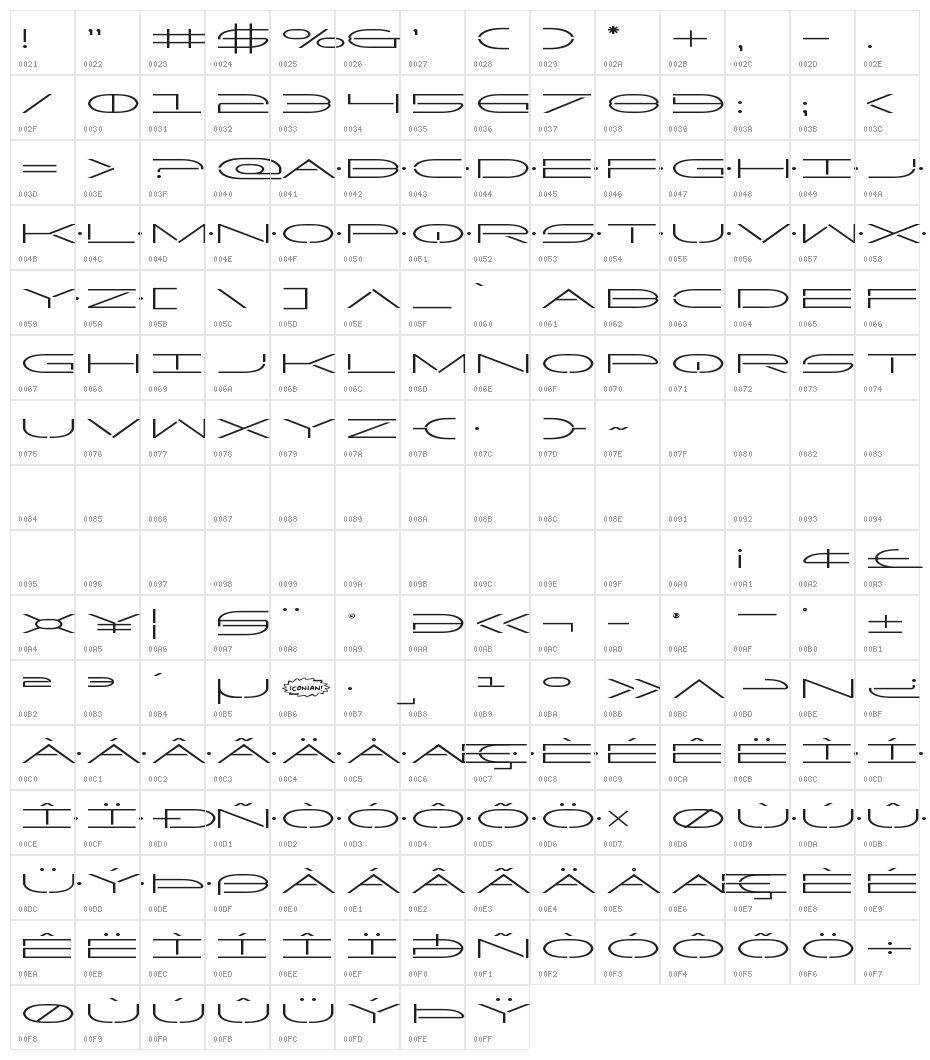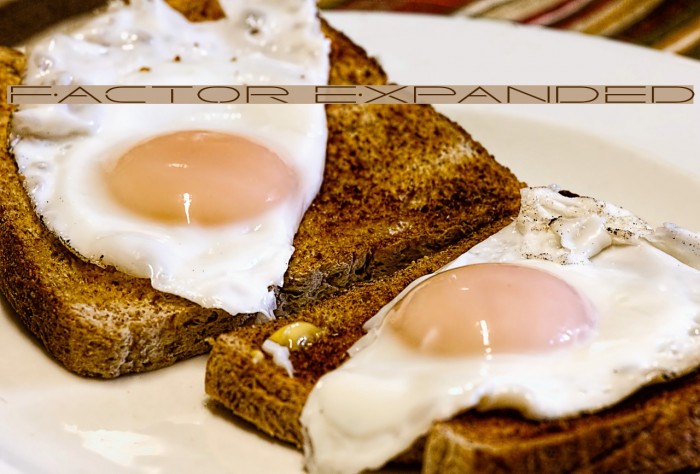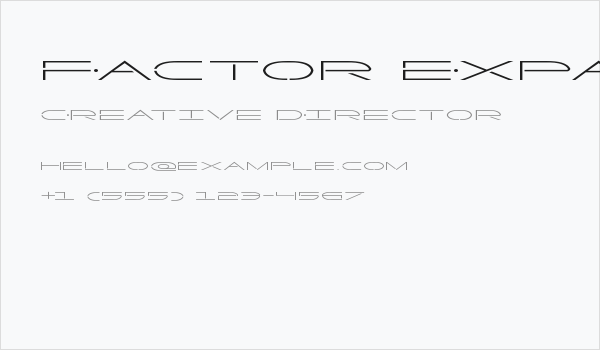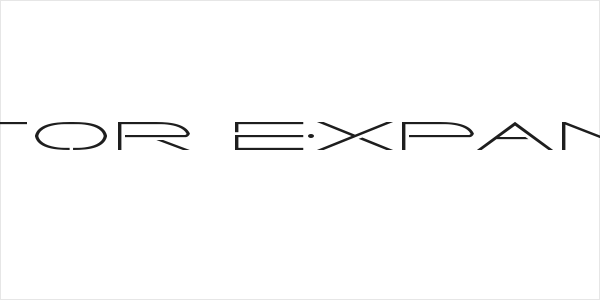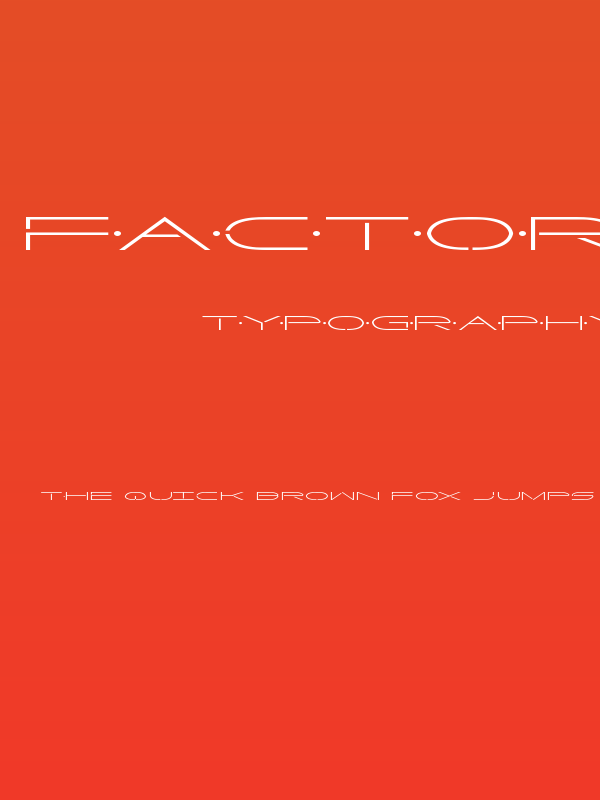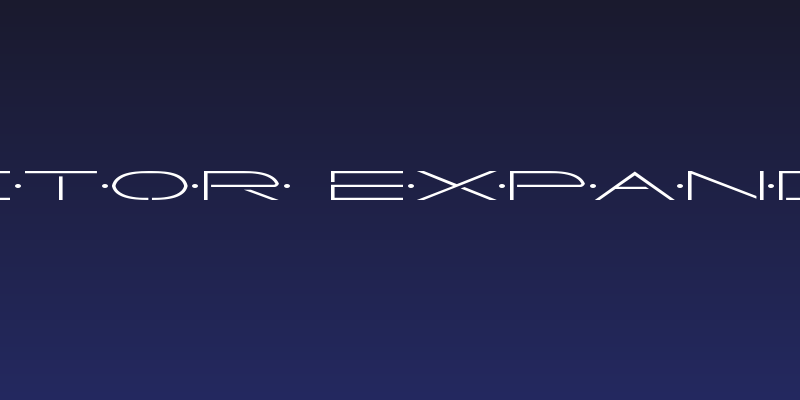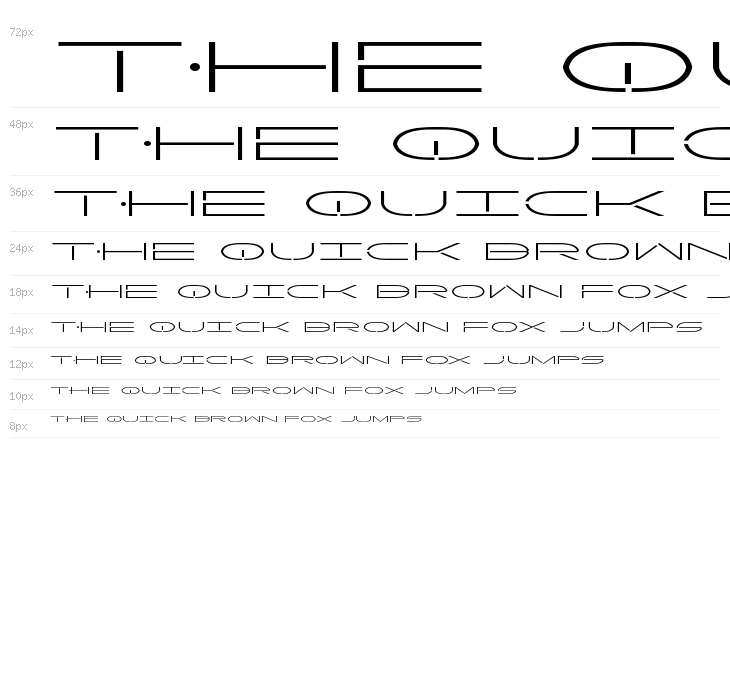
Factor Expanded Font
Factor Expanded Description
This font features a futuristic and geometric design, characterized by its clean lines and unique cut-out elements within each character. The uppercase and lowercase letters maintain a consistent style, emphasizing a modern aesthetic with a touch of minimalism. The numerals and special characters follow the same design principles, ensuring uniformity across all glyphs. The font's structure is both innovative and visually striking, making it ideal for projects that require a contemporary and tech-inspired look.
| Use Case | Logos, Headlines, Digital interfaces |
| Proposed Projects | Ideal for technology branding, sci-fi themed designs, modern advertising, and digital interfaces. |